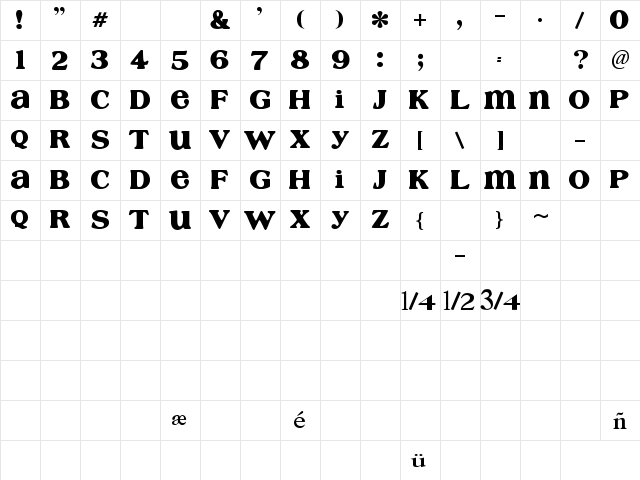
Cafe Rojo Regular
Design Context for Cafe Rojo Typeface
Cafe Rojo takes a measured approach to typography — its balanced proportions and neutral character make it a reliable workhorse for both digital and print work.